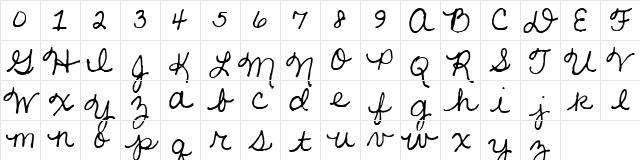
Kristen script alt alt Free Font
Kristen script alt alt
Style: alt
Foundry: Font Garden
Designer: Kristen - fonted by Ellinor
Design Context for Kristen script alt
Kristen script alt flows with the natural rhythm of handwritten lettering, making it ideal for designs that call for warmth and personal expression.
Font Pairing: Combine Kristen script alt with a simple geometric sans for maximum contrast - the tension between flowing curves and clean structure is a classic typographic pairing.
Pro Tip: Use Kristen script alt for short runs of text - names, titles, or taglines. Extended body copy in script faces tires the eye quickly.